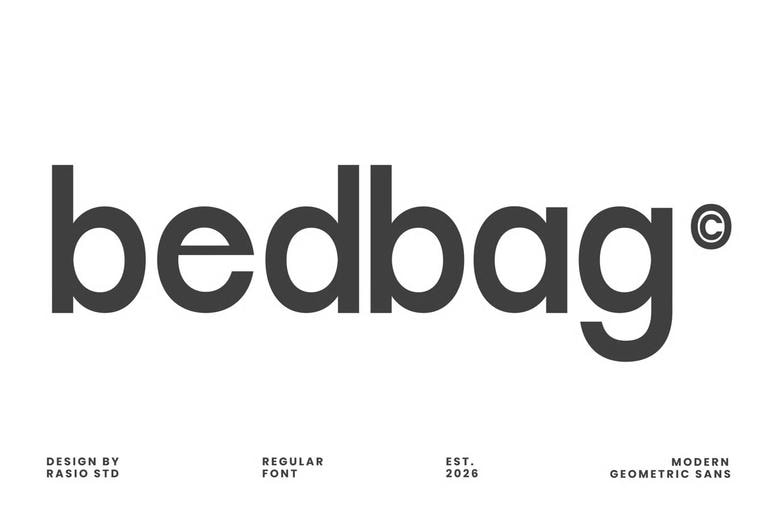
Bedbag Font
Bedbag is a modern geometric sans serif font with balanced proportions and smooth curves. Its clean, neutral style makes it easy to read and a good fit for today’s design projects.
This typeface has a professional look that works for both display and editorial uses. Its flexible design makes it a good choice for branding, architecture presentations, UI layouts, posters, websites, and corporate projects.
Bedbag is a strong option for modern branding, architecture presentations, editorial layouts, UI/UX projects, website headers, minimalist posters, and corporate identity. It supports clear visual communication.
Thanks to its geometric design and clear readability, Bedbag is a good fit for marketing materials, business presentations, social media graphics, packaging, and digital interfaces that need a modern look.